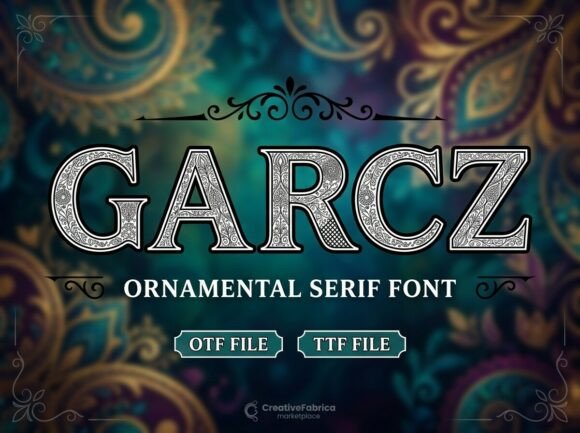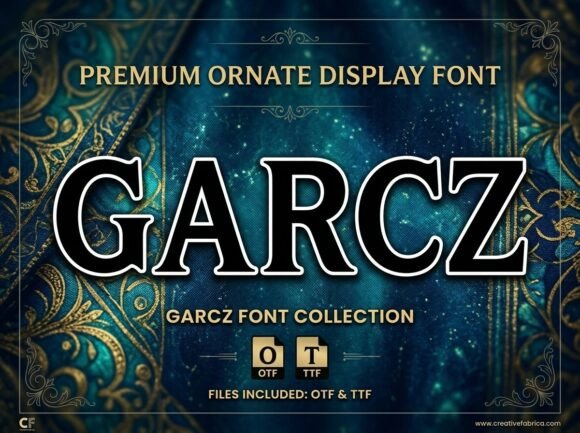
Introducing Garcz Font: A Majestic Display Serif for the Ages
Are you looking for a font that can transport you back to an era of unparalleled detail and sophistication? Look no further than Garcz, a majestic display serif that embodies the essence of a bygone era. With its bold, hollow letterforms and intricate filigree details, Garcz is the perfect choice for designers and crafters seeking to add a touch of luxury and prestige to their projects.
The Inspiration Behind Garcz
Garcz is more than just a font – it’s an experience. Inspired by the ornate details of classical architecture and the elegance of traditional craftsmanship, Garcz captures the “stately-and-storyfilled” soul of a bygone era. Its bold, hollow letterforms are masterfully filled with a rhythmic, hand-drawn filigree of floral damasks and classical scrollwork, evoking the intricate details of luxury book bindings, fine china, and high-end jewelry.
Design Features of Garcz
Garcz boasts a range of design features that make it the premier choice for independent heritage branding, artisanal spirits labels, luxury book titles, and high-impact social media headers. Some of its key features include:
- Bold, hollow letterforms: Garcz’s bold, hollow letterforms provide a striking foundation for its intricate filigree details, creating a sense of depth and dimensionality.
- Rhythmic filigree details: The hand-drawn filigree details in Garcz are a masterclass in elegance and sophistication, featuring floral damasks and classical scrollwork that add a touch of luxury to any project.
- Balanced structural weight: Garcz’s balanced structural weight ensures that it remains legible and impactful, even at large sizes, making it perfect for display applications.
- Prestigious personality: Garcz exudes a sense of prestige and sophistication, making it the perfect choice for high-end branding, luxury packaging, and exclusive events.
Use Cases for Garcz
Garcz is a versatile font that can be used in a variety of contexts, from independent heritage branding to luxury book titles and high-impact social media headers. Some potential use cases for Garcz include:
- Independent heritage branding: Garcz is the perfect choice for brands seeking to evoke a sense of tradition, heritage, and sophistication.
- Artisanal spirits labels: Garcz’s elegant, refined design makes it a natural fit for artisanal spirits labels, adding a touch of luxury and exclusivity to any product.
- Luxury book titles: Garcz’s bold, intricate design makes it perfect for luxury book titles, adding a touch of sophistication and elegance to any publication.
- High-impact social media headers: Garcz’s bold, eye-catching design makes it perfect for high-impact social media headers, helping brands stand out in a crowded online landscape.
Why Choose Garcz?
With so many fonts on the market, why choose Garcz? Here are just a few reasons why Garcz stands out from the crowd:
- Unique design: Garcz’s intricate filigree details and bold, hollow letterforms make it a truly unique font that will help your brand stand out.
- High-quality craftsmanship: Garcz is a masterclass in font design, featuring intricate details and a level of craftsmanship that’s hard to find in modern fonts.
- Versatility: Garcz can be used in a variety of contexts, from branding and packaging to publishing and digital design.
Garcz is a majestic display serif that captures the essence of a bygone era. With its bold, hollow letterforms and intricate filigree details, Garcz is the perfect choice for designers and crafters seeking to add a touch of luxury and prestige to their projects. Whether you’re working on independent heritage branding, artisanal spirits labels, luxury book titles, or high-impact social media headers, Garcz is the premier choice for any project that demands sophistication, elegance, and refinement.